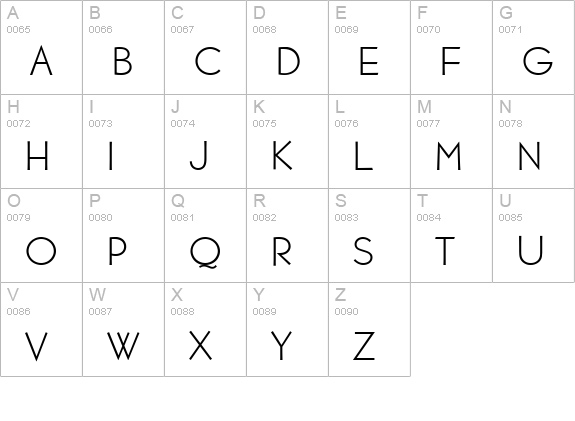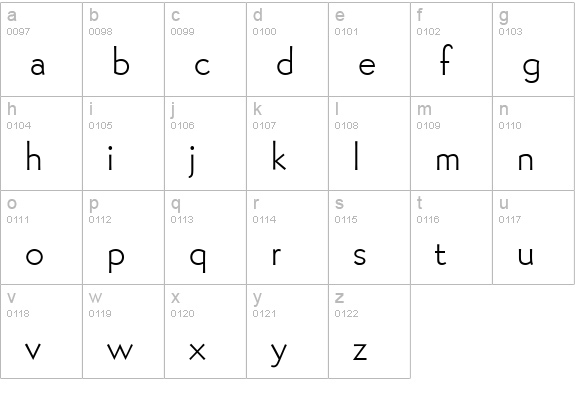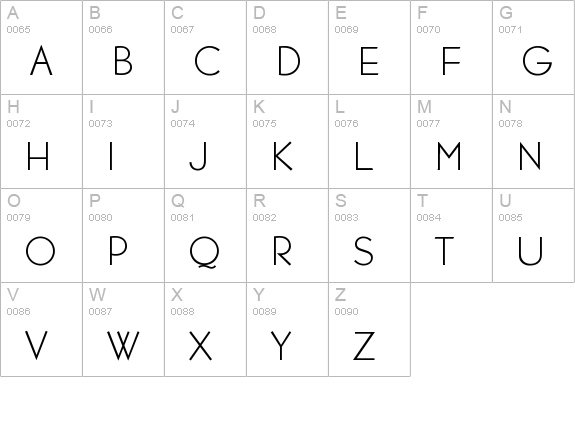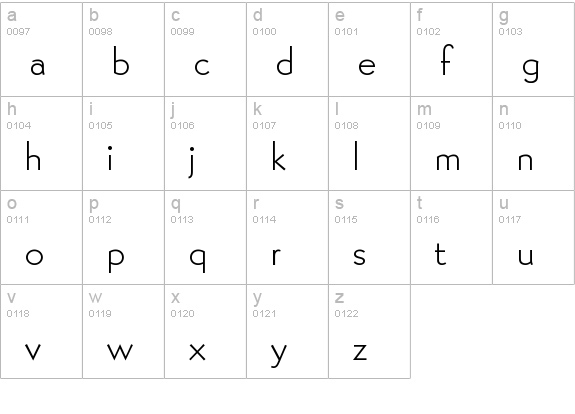
Bernhard Gothic Light is a refined, elegant variant in the Bernhard typeface family \xE2\x80\x94 well suited to elegant body text, refined sub-headings, and luxury branding.
Bernhard Gothic Light is a sleek and modern sans-serif font that exudes sophistication and elegance. With its clean lines and subtle curves, this typeface is perfect for a wide range of design projects, from branding to editorial design. The light weight of the font gives it a delicate and airy feel, making it suitable for titles, headers, and other display purposes. One of the best things about Bernhard Gothic Light is that it is available for free download at FontsMarket.com. This means that you can easily access this beautiful font and use it in your projects without any cost. Whether you're a professional designer or a hobbyist looking to spruce up your creations, Bernhard Gothic Light is a versatile and stylish font that is sure to elevate your designs.